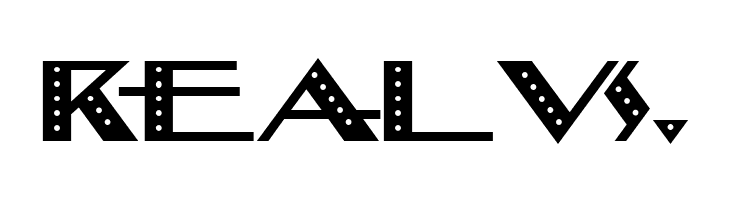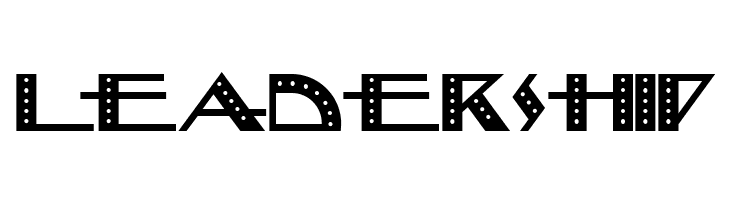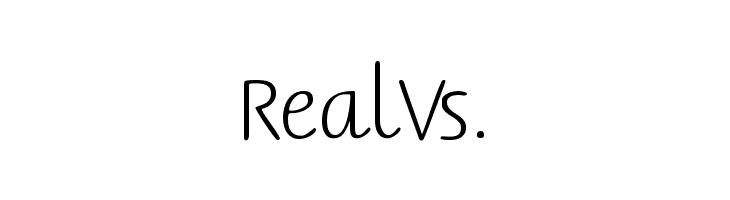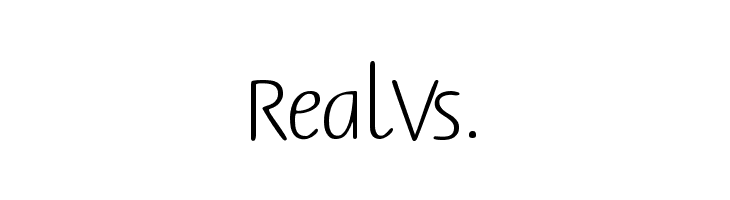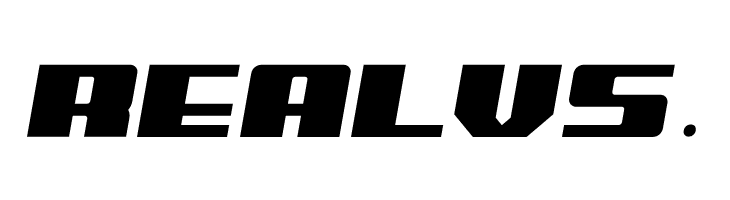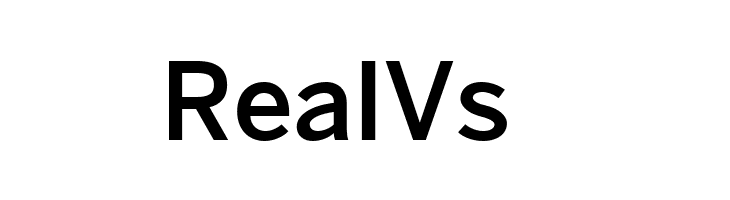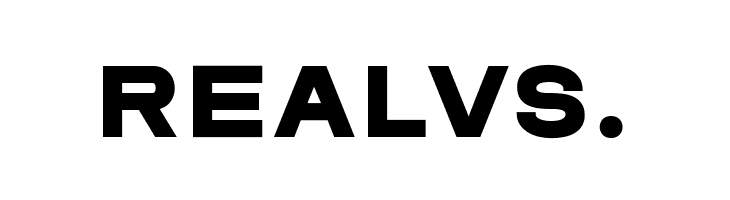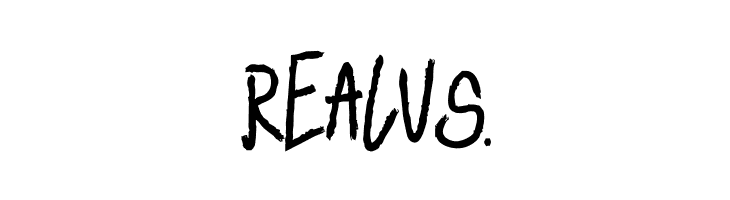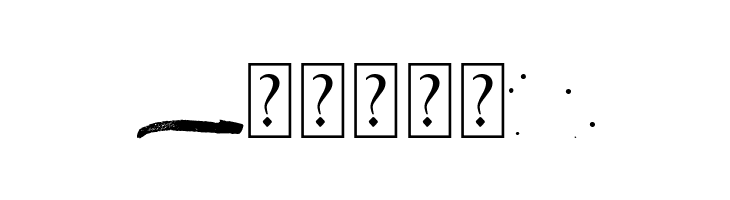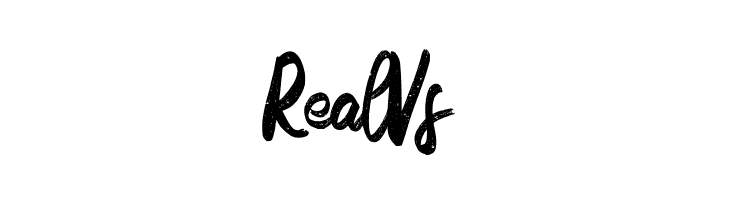
A flowing, cursive script font with elegant loops and swashes.
Highly decorative music-themed pictorial font.
A bold, geometric font with modern, decorative elements and dot patterns.
A playful, cursive font with bold, interconnected letters and a whimsical style.
A modern, handwritten font with elegant, flowing characters.
A bold, textured brush-style font with a dynamic and expressive script.
A refined, handwritten script with elegant, flowing lines.
A classic serif font with elegant, slightly italicized characters.
A bold, angular font with a futuristic and geometric design.
A bold, 3D font with sharp, angular edges and a futuristic style.
A bold, angular 3D italic font with a futuristic style.
A bold, angular, and condensed font with a futuristic design.
A bold, angular, and condensed italic font with a dynamic and edgy style.
A bold, expanded italic font with a futuristic, geometric style.
A bold, italicized font with sharp, angular edges and a futuristic style.
A bold, angular font with a futuristic and dynamic design.
A beveled serif font with a three-dimensional, classic appearance.
A classic serif font with a unique beveled, three-dimensional style.
A bold, dynamic font with a modern, geometric style.
A fluid and elegant script font with a natural handwriting style.
A bold, expressive handwritten font with dynamic strokes and artistic flair.
A decorative font with elegant swashes and artistic flourishes.
A clean, modern sans-serif font with excellent readability and uniform appearance.
A bold, modern sans-serif font with clean lines and a strong presence.
A playful, cartoon-inspired font with bold, rounded characters featuring whimsical designs.
An elegant script font with flowing, ornate characters.
A bold, geometric font with a modern and confident style.
A bold, geometric font with a modern and minimalistic style.
A clean, simple font with rounded characters and consistent stroke width.
A clean, rounded font with consistent line weight and friendly appearance.
A modern, clean font with a handwritten touch and smooth curves.